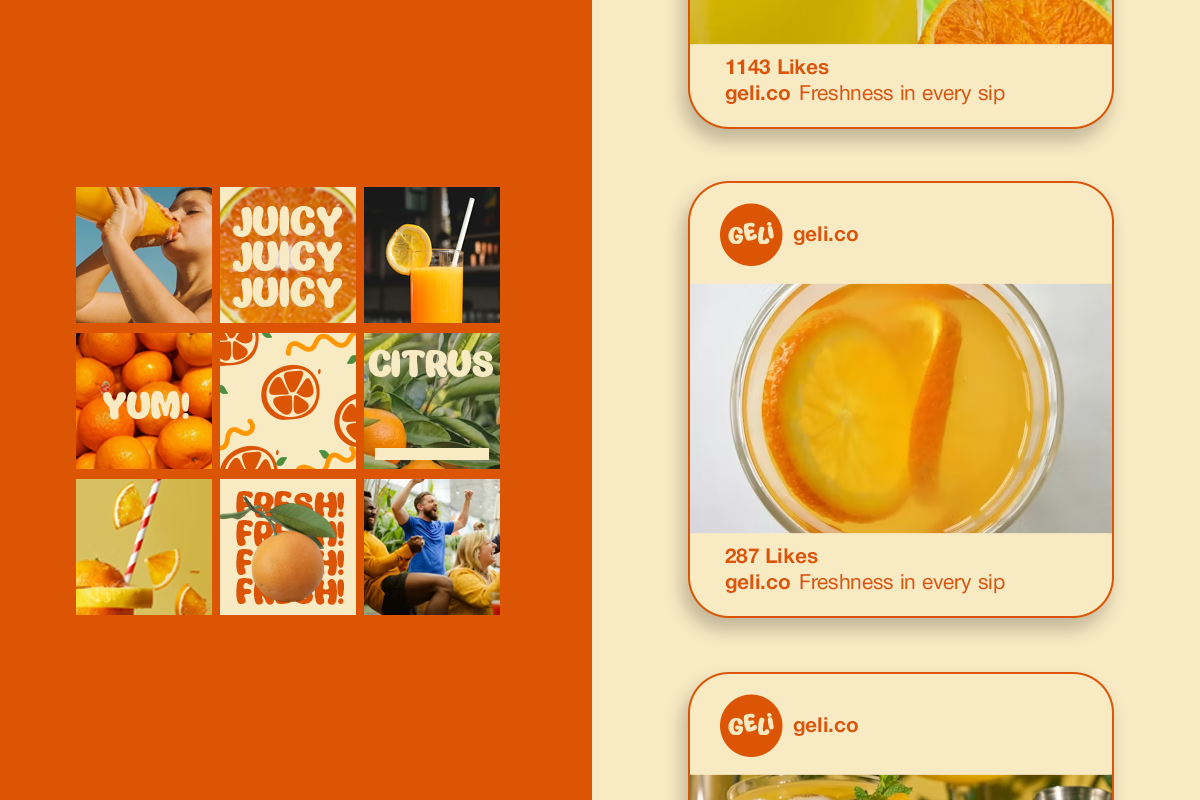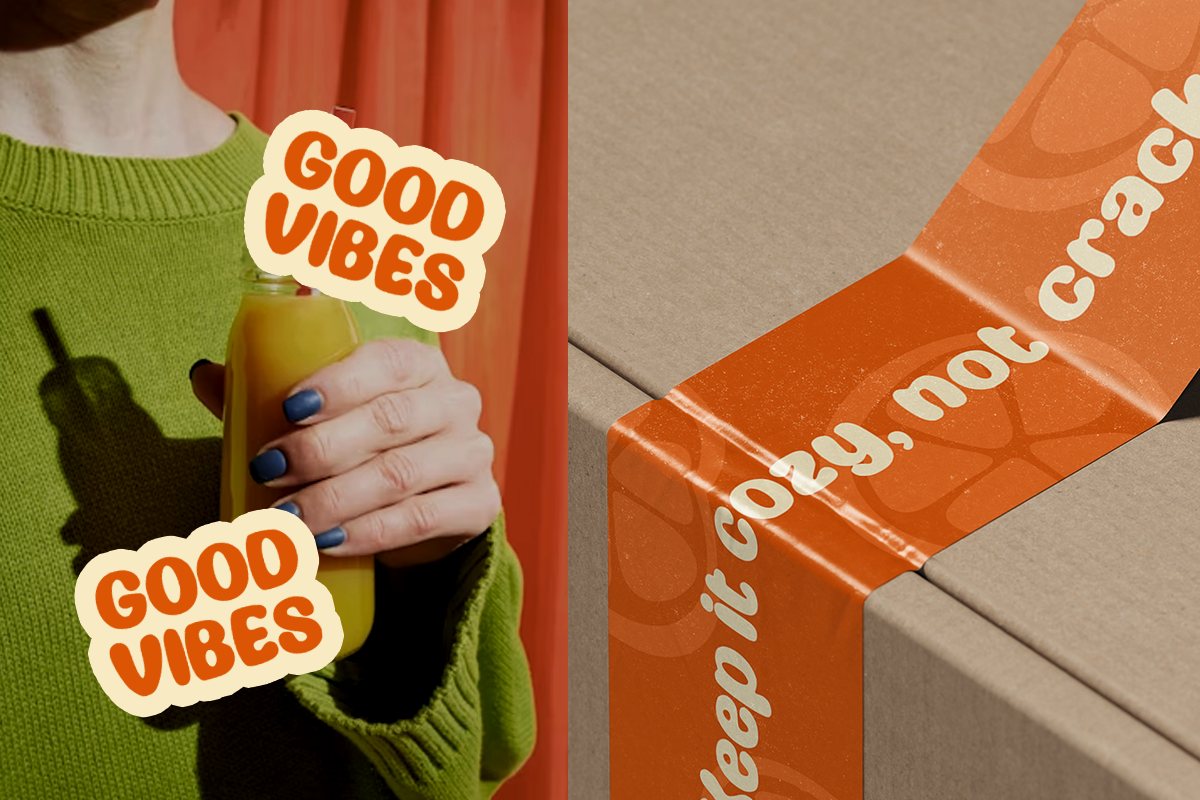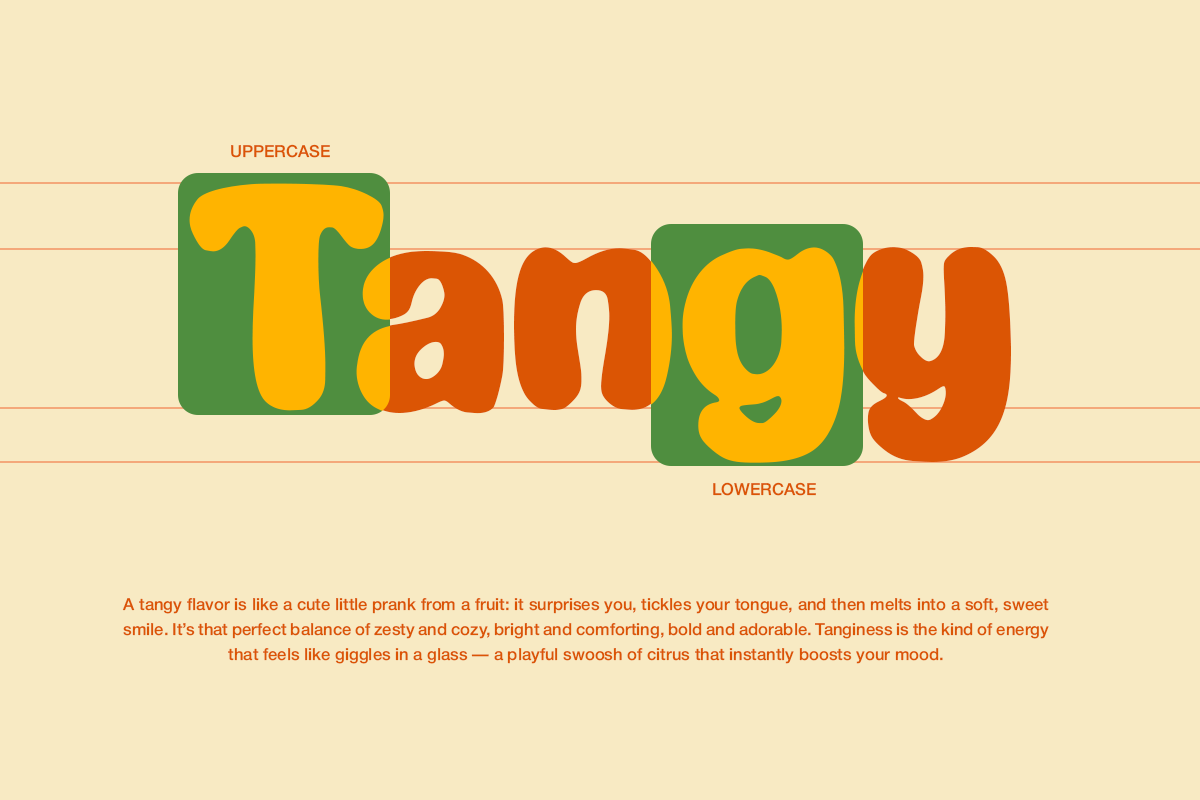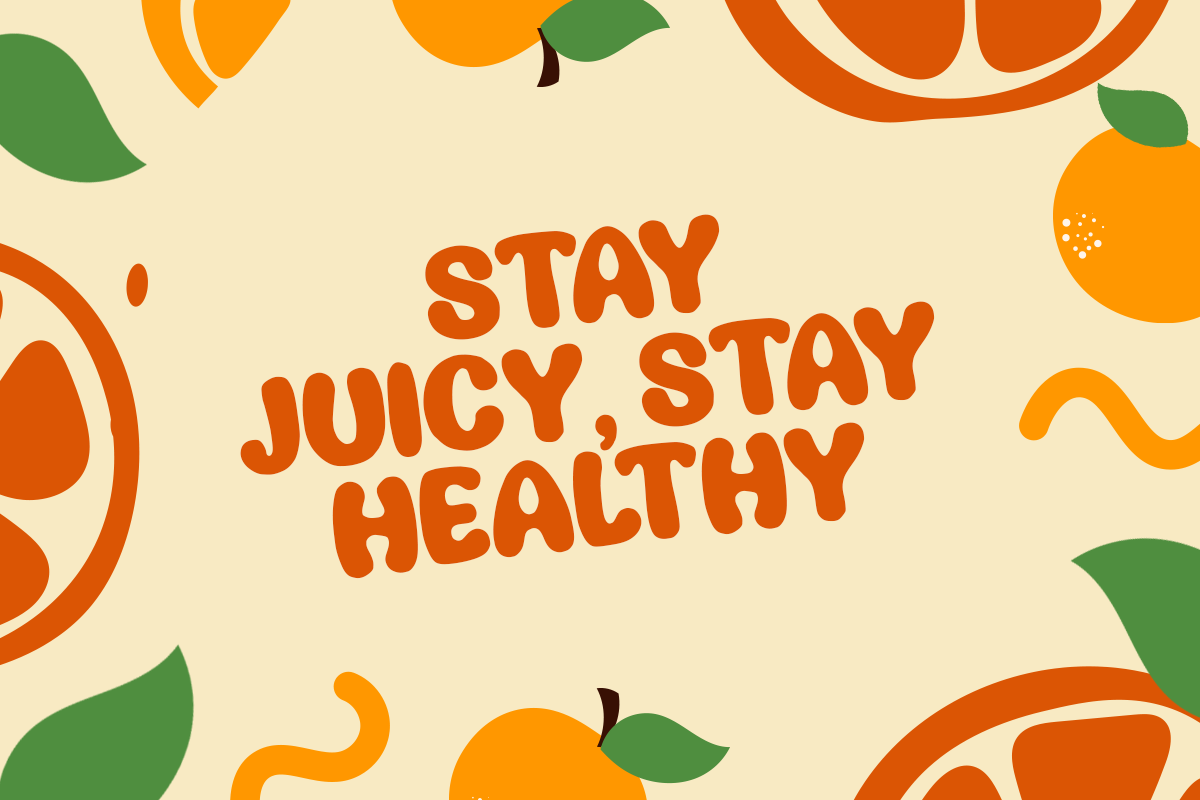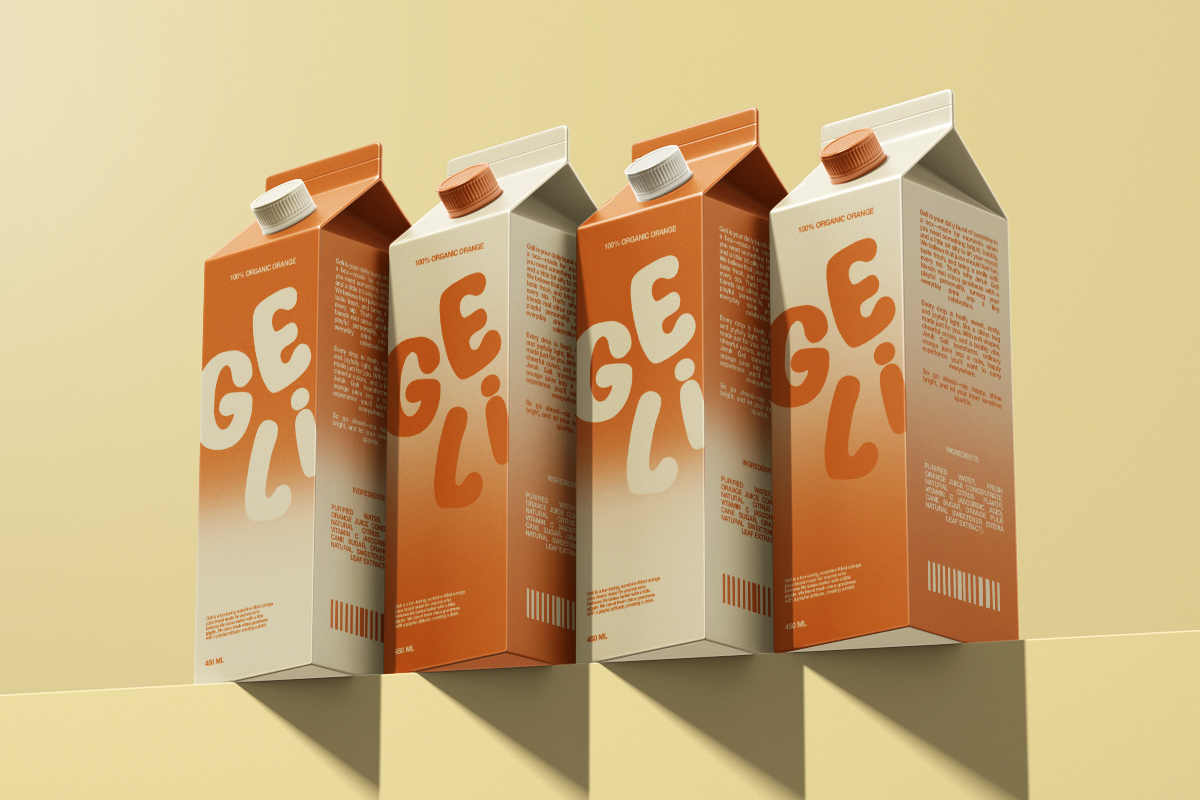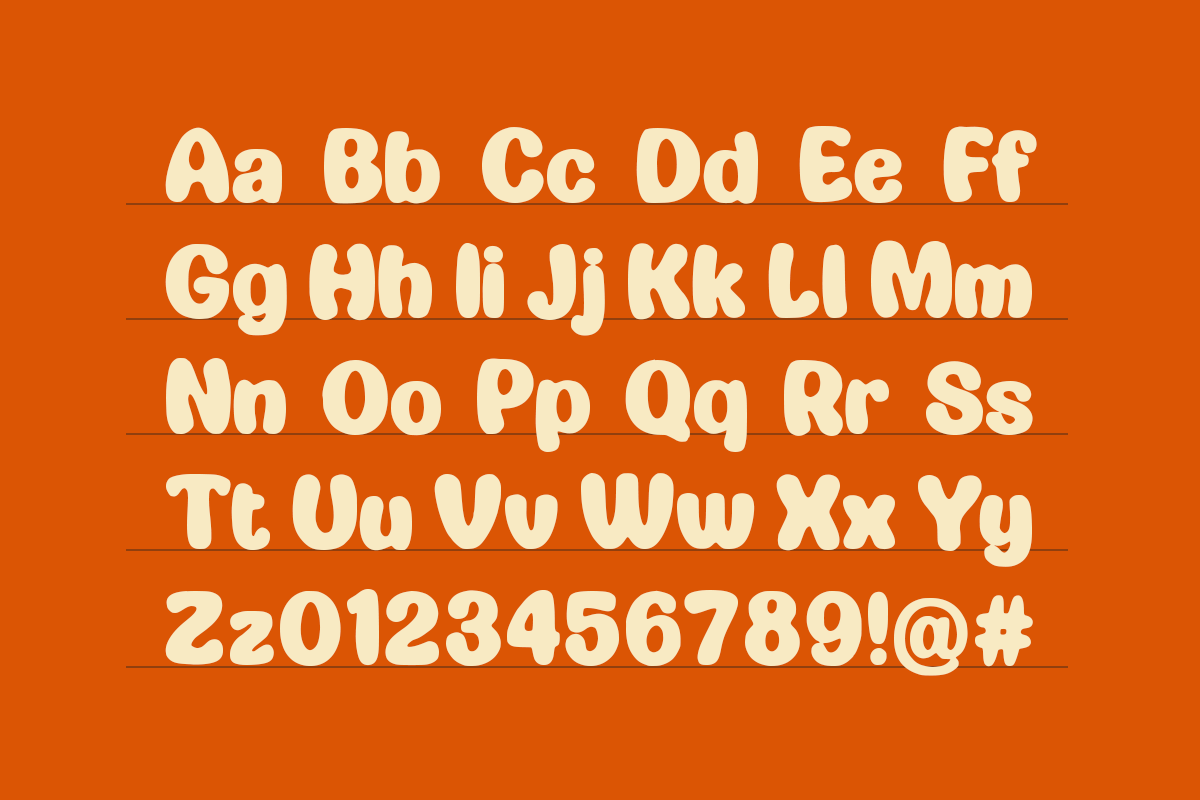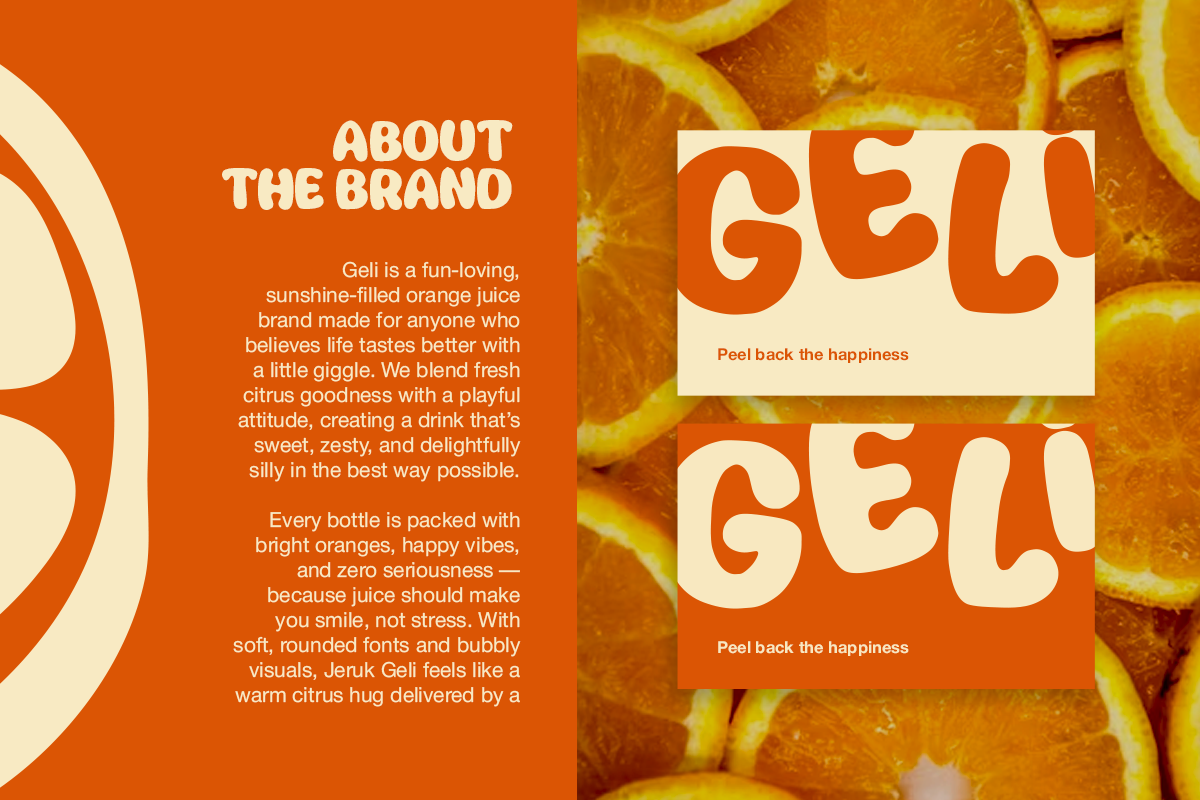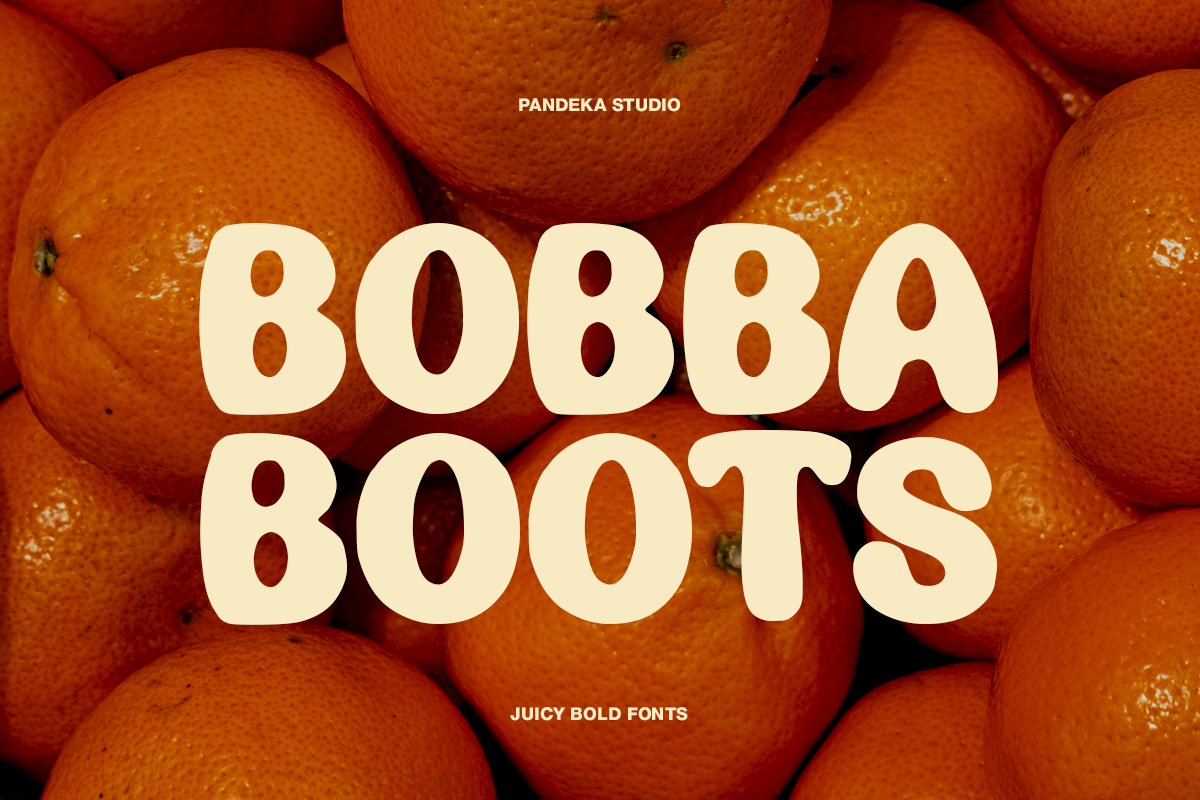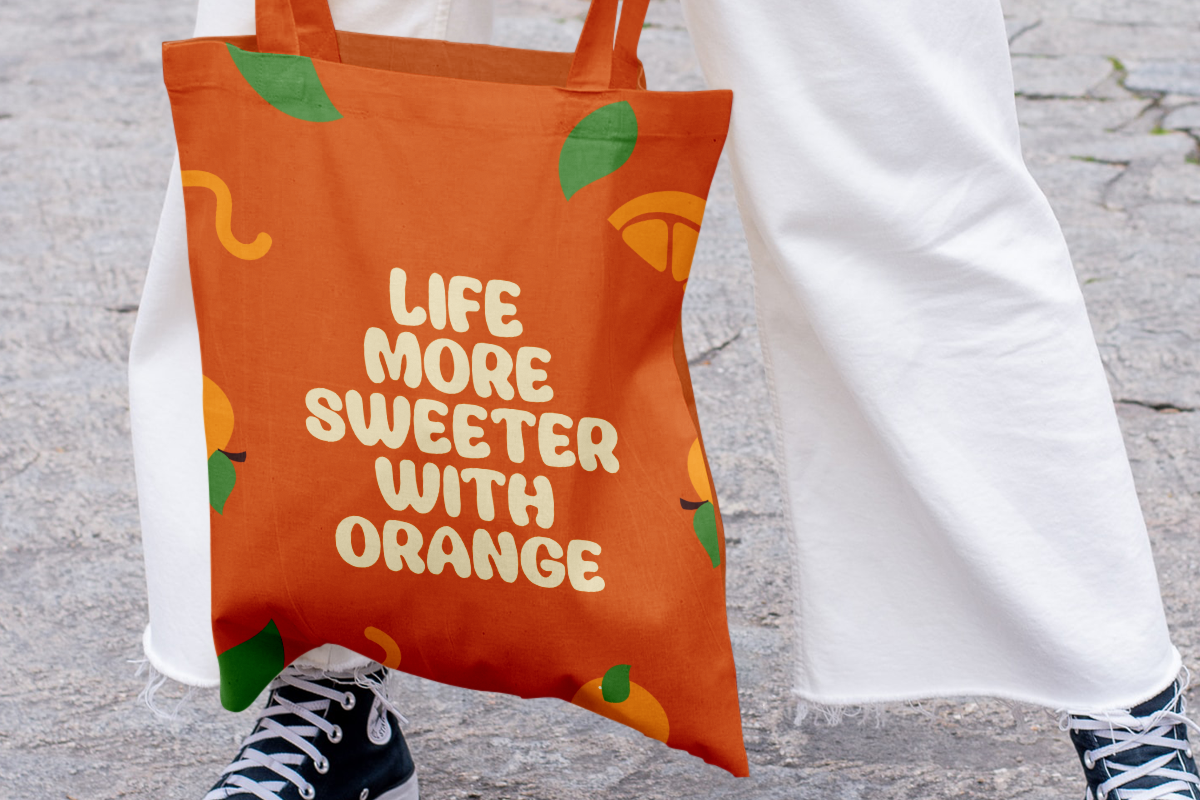
Bobba Boots - Juicy Bold Font
Bobba Boots is a fun and juicy bold font designed to bring fresh energy and playful character to your creative projects. With its soft bubble shapes and rounded curves, this typeface captures the vibrant feeling of fruit brands, healthy beverages, kid-friendly designs, and cheerful visual identities.
Featuring 1 bold regular style, Bobba Boots delivers a sweet and lively personality that works perfectly for packaging, juice labels, social media graphics, posters, stickers, branding, and eye-catching headlines. Its bold, bouncy look makes every design feel fun, refreshing, and full of flavor—just like your favorite fruit drink!
- Full Character Set: Uppercase, lowercase, numbers, symbols, and punctuation